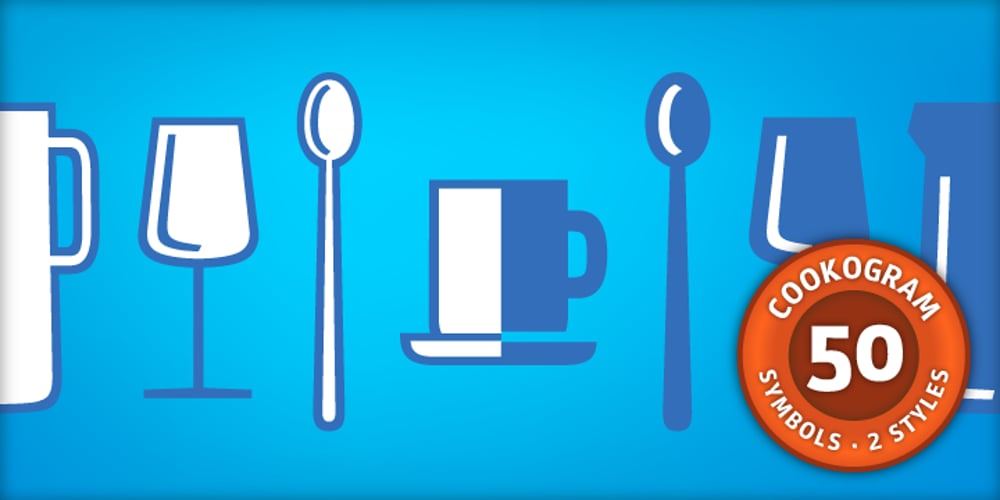
Cookogram Font Family was designed by Jure Kožuh and published by Jure Kožuh. Cookogram contains 2 styles and family package options. Cookogram is a package of 50 pictograms which have been drawn in two styles – outline & solid. The pictogram set consists of cooking and eating utensils, pots, pans, glasses, bottles and crockery.